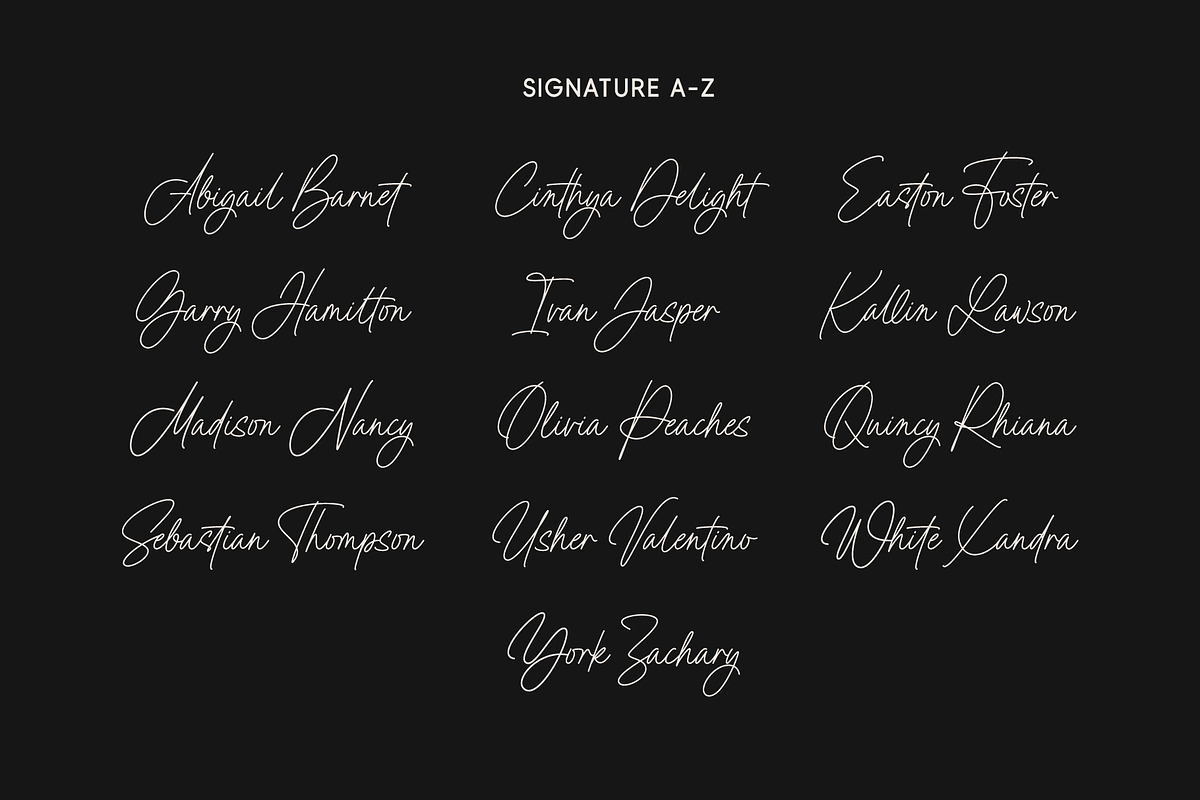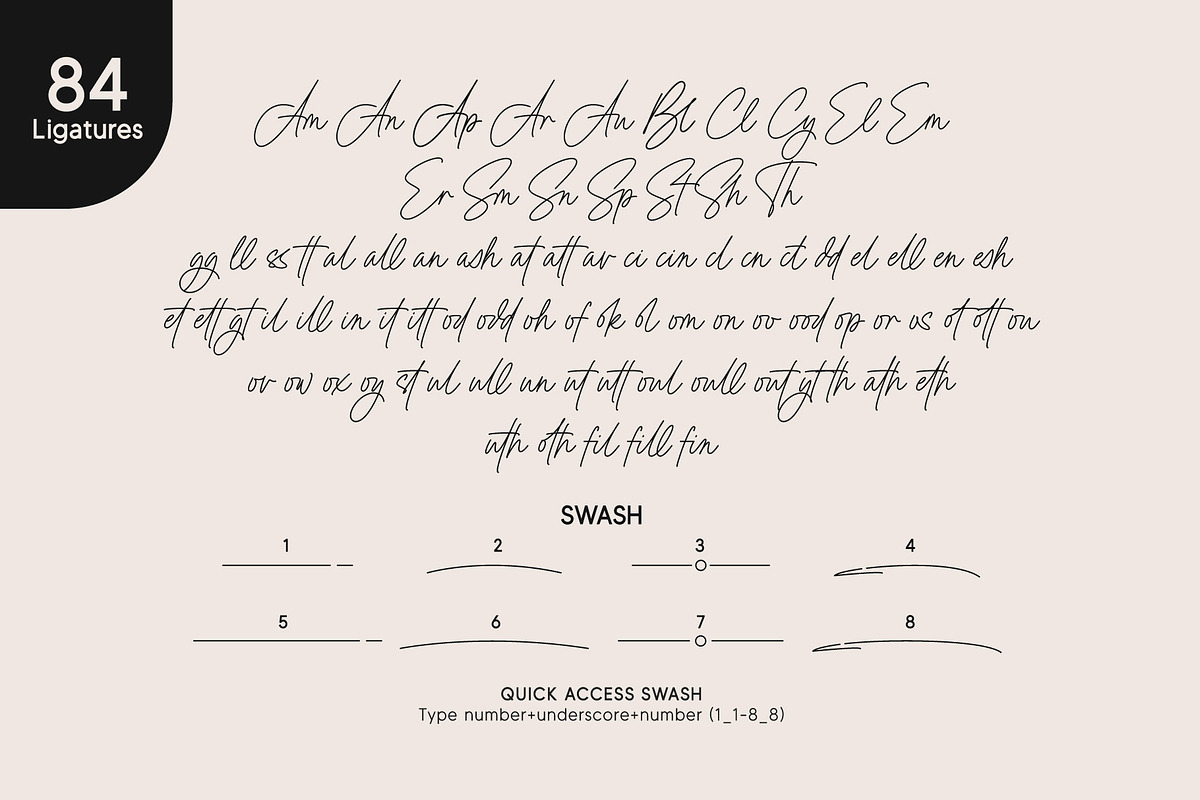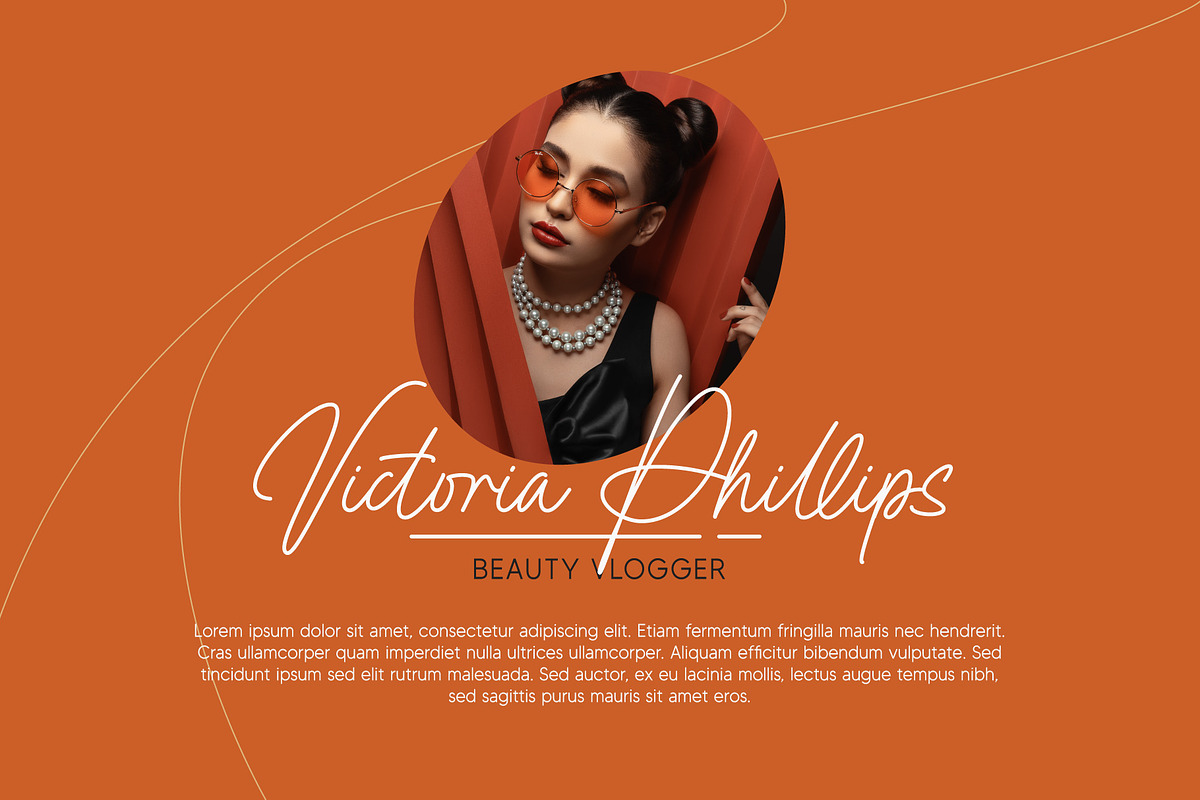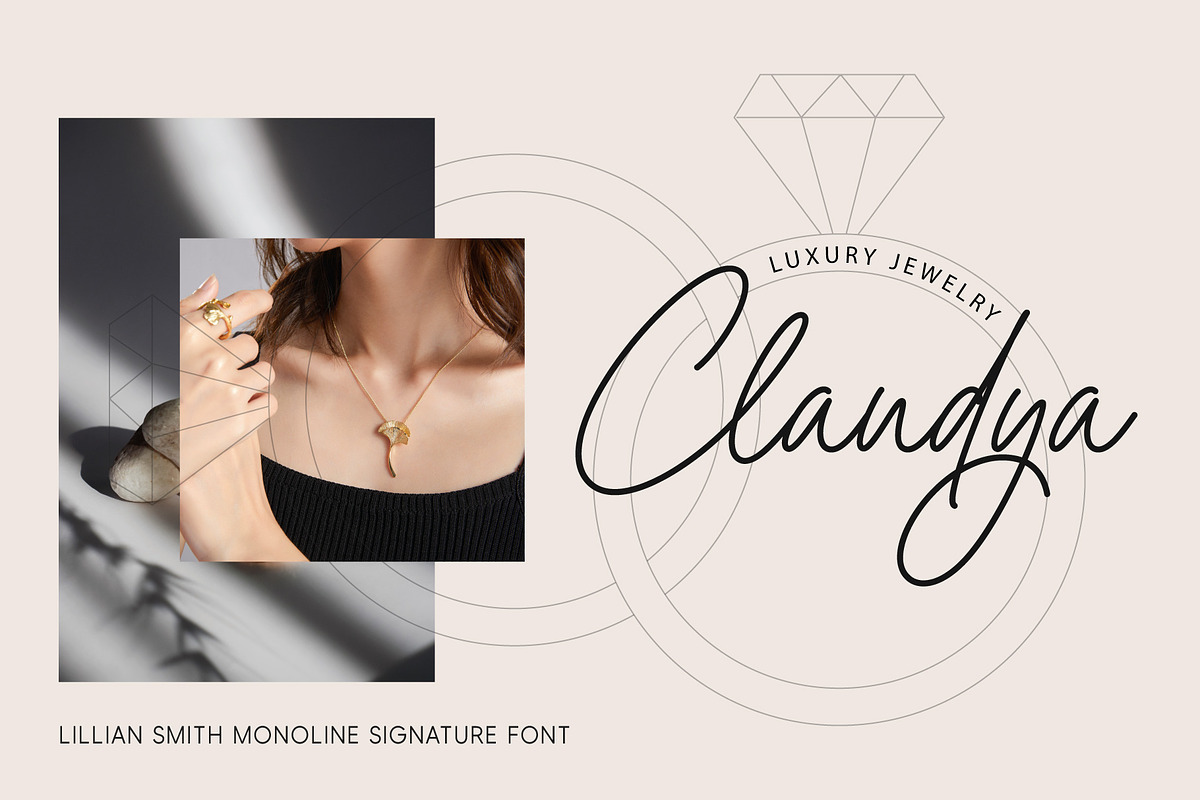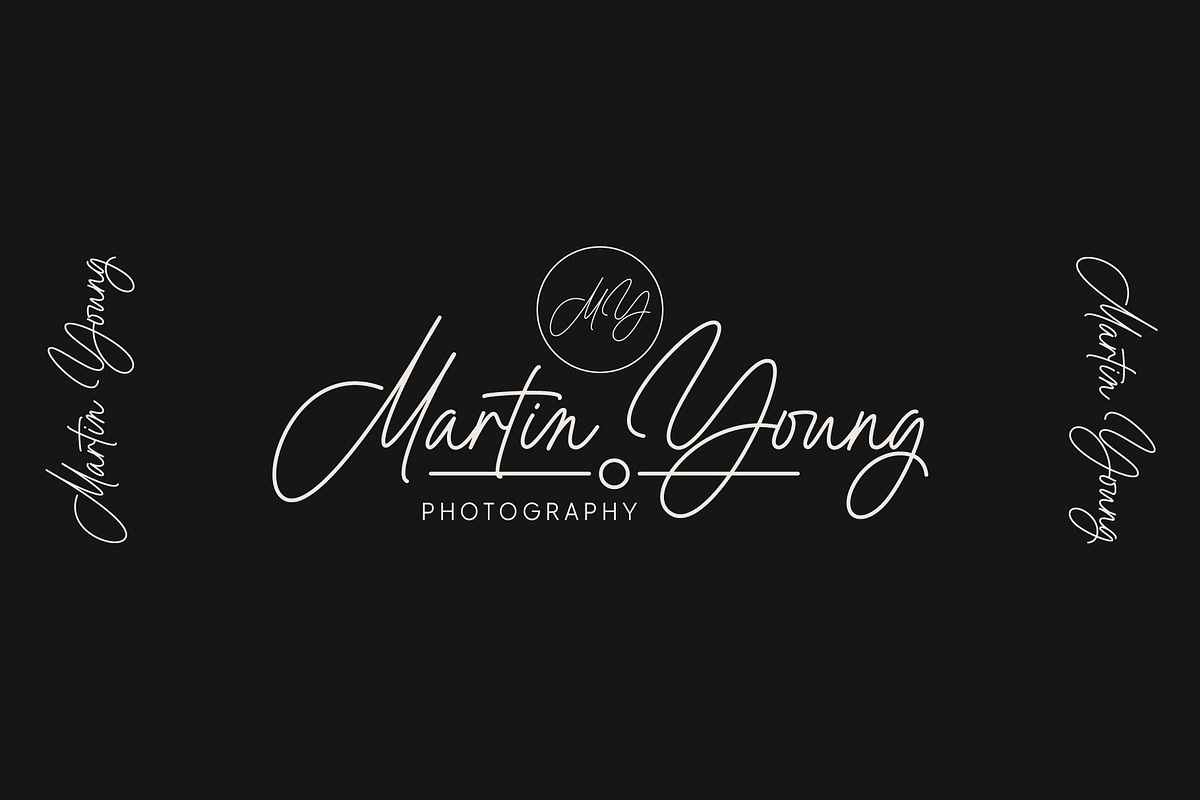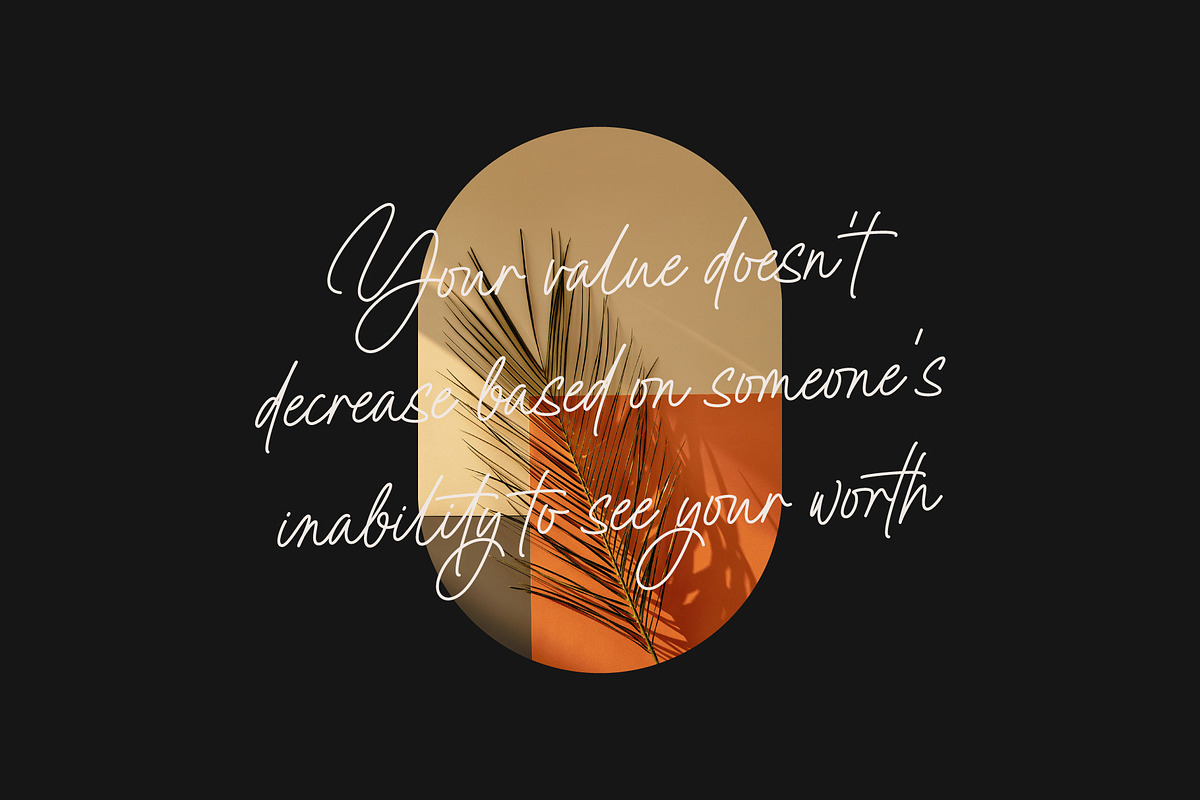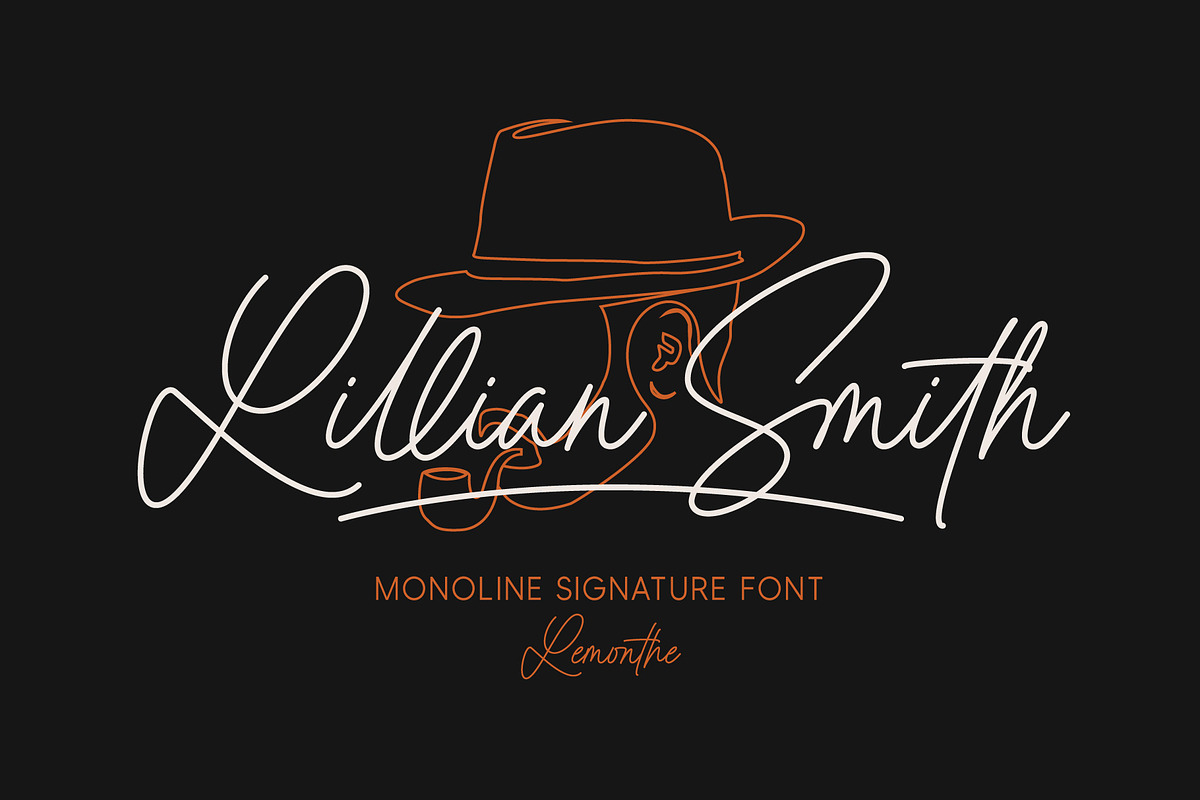
Lillian Smith | Signature Font
Lillian Smith is a monoline signature font. Featuring 84 ligatures, this font delivers a soft and flowing impression. It is highly suitable for adding a modern or classic touch to various design projects such as logos, branding, labels, product packaging, invitation designs, business cards, and much more.
- Swash: Add number (1–8) + underscore + number (1–8) Ex: 1_1, 2_2, 3_3, 4_4, 5_5, 6_6, 7_7, 8_8